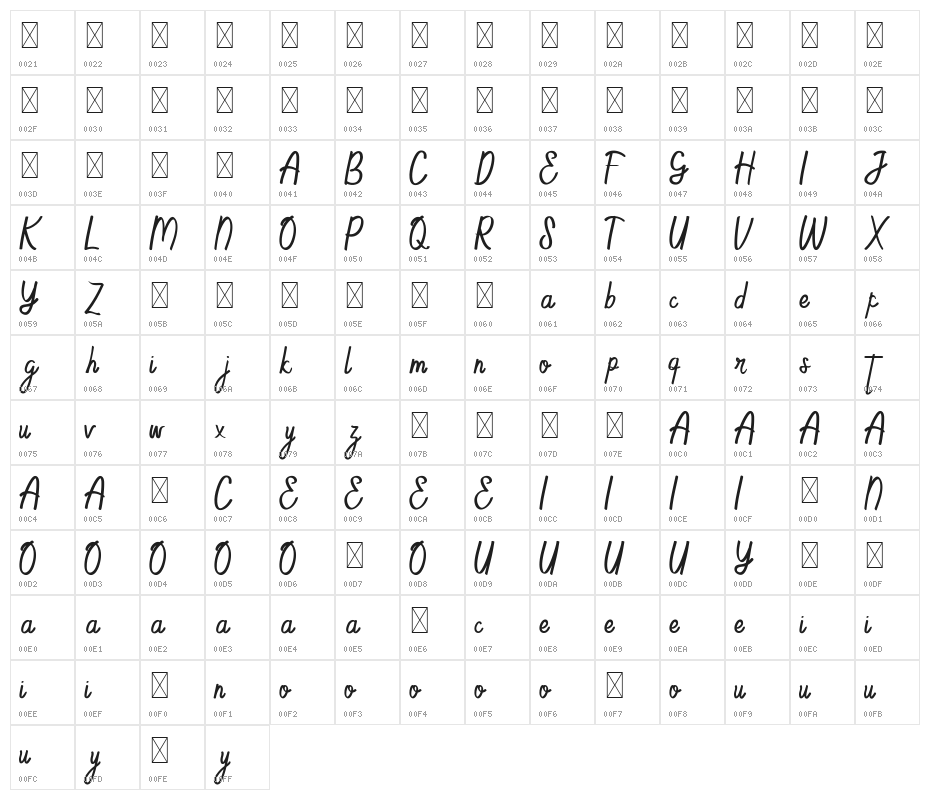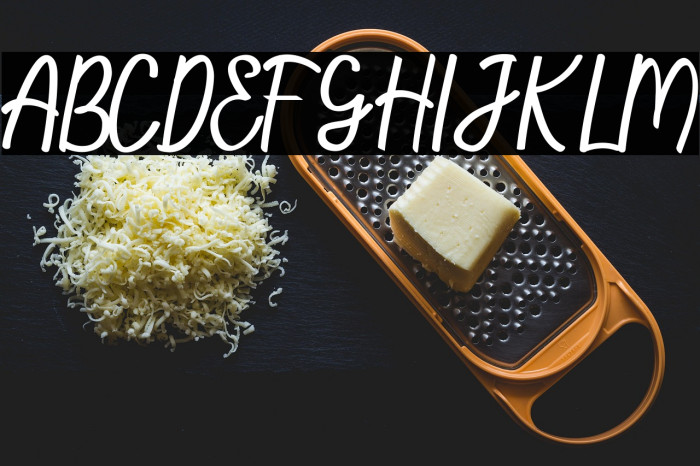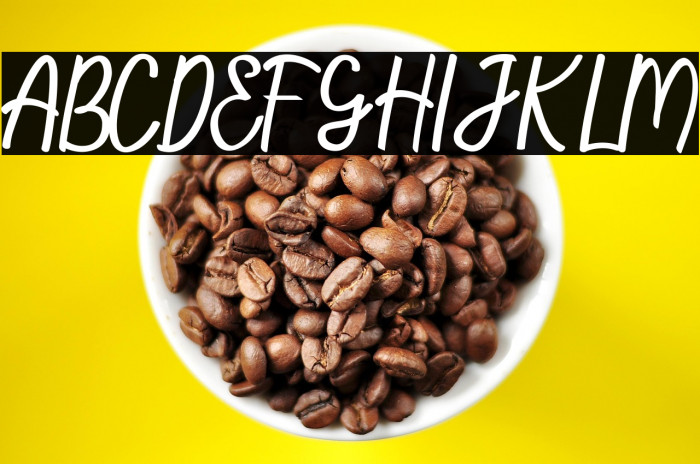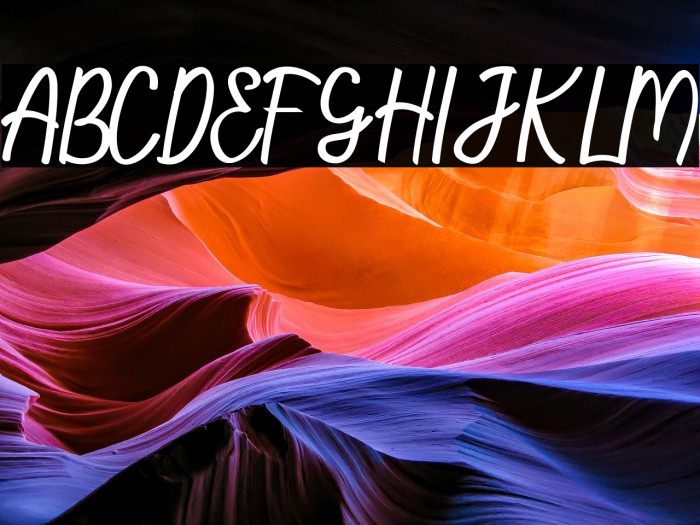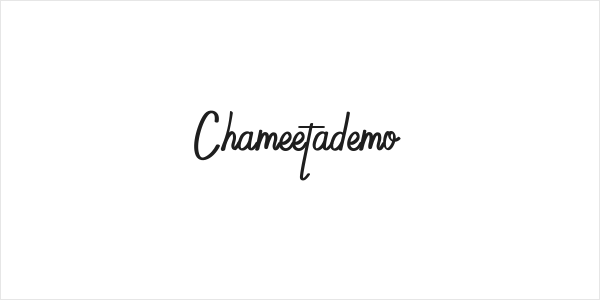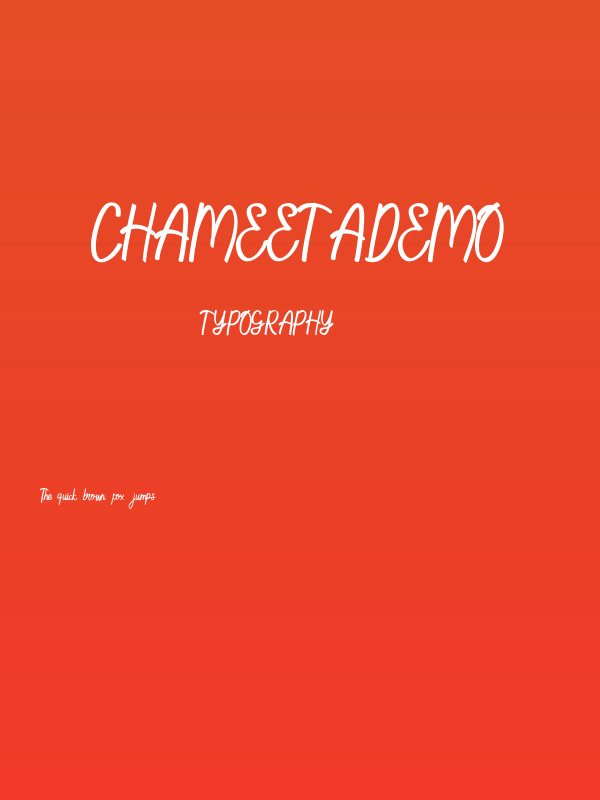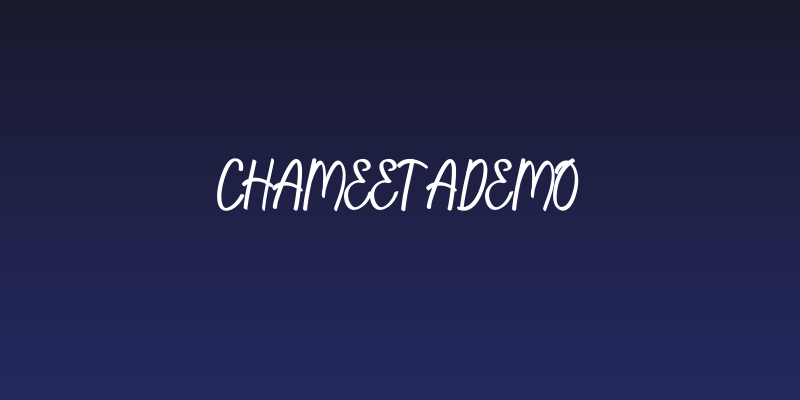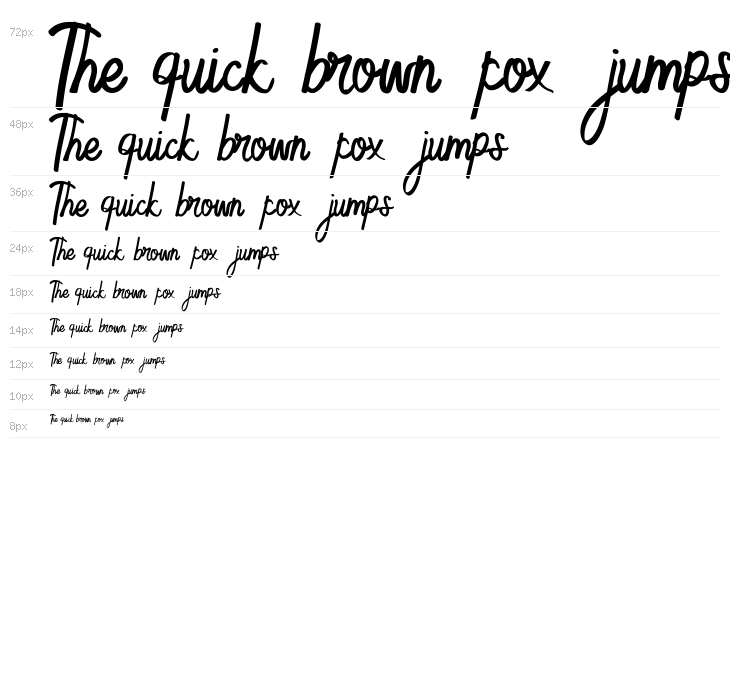
Chameetademo Font
Chameetademo Description
This font features a lively and dynamic script style, characterized by its flowing, cursive letterforms. The uppercase letters are bold and slightly slanted, giving a sense of movement and elegance. The lowercase letters maintain a consistent flow, with smooth connections between characters, enhancing its handwritten appeal. The strokes are moderately thick, providing good readability while maintaining a stylish flair. This font lacks special characters, focusing solely on alphabets, which makes it ideal for creative projects where a personal touch is desired.